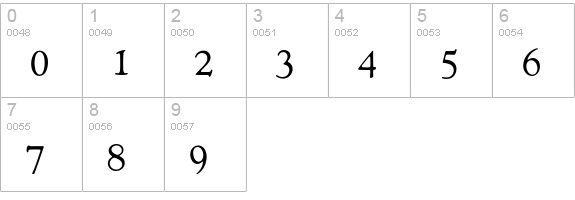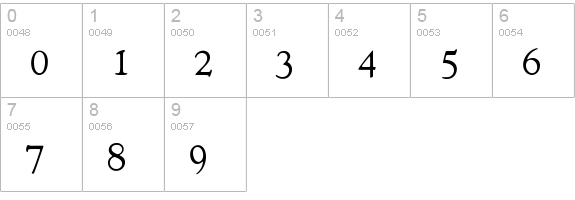
Cooper Old Style Regular is the standard, neutral variant in the Cooper typeface family \xE2\x80\x94 well suited to general body text, paragraphs, and standard typographic work.
Cooper Old Style Regular font is a timeless and classic typeface that exudes elegance and sophistication. Its refined serifs and balanced proportions make it perfect for a wide range of design projects, from branding to editorial layouts. The versatility of Cooper Old Style Regular font allows it to seamlessly adapt to various styles and applications, making it a must-have in any designer's toolkit. Best of all, Cooper Old Style Regular font is available for free download at FontsMarket.com. This means you can access this high-quality font without any cost, making it a valuable addition to your font library. Don't miss out on the opportunity to enhance your designs with the exquisite charm of Cooper Old Style Regular font - download it for free today!